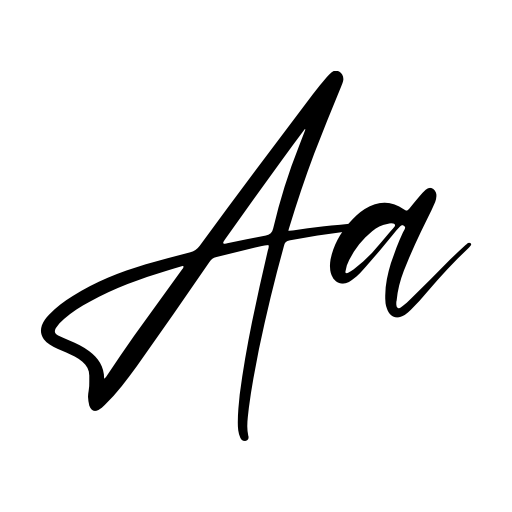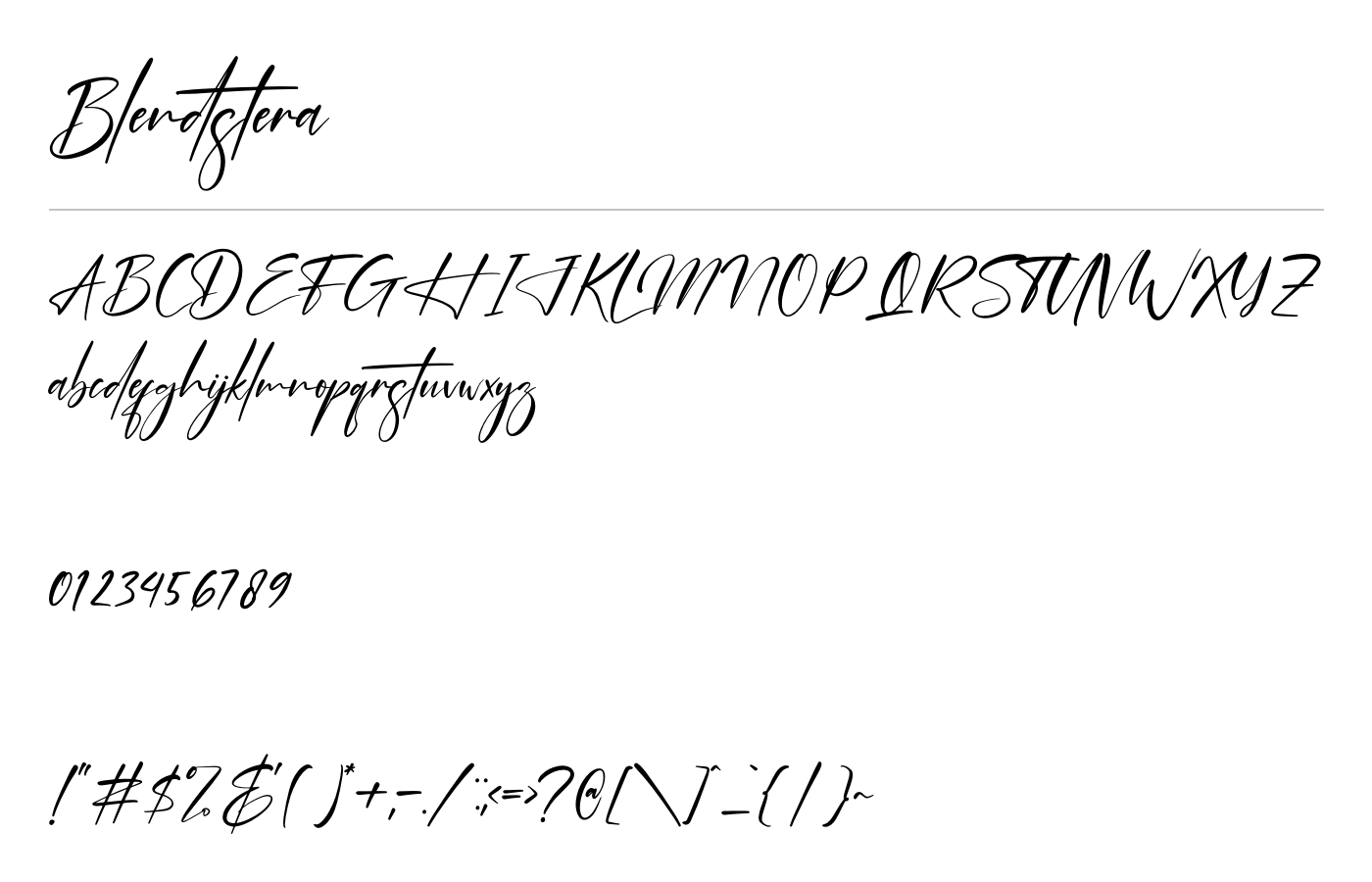
Blendstera is an elegant and modern script font featuring a fluid, handwritten style with delicate, smooth strokes and a graceful, slightly narrow width. Its high contrast and flowing letterforms give it a sophisticated and stylish personality, making it perfect for luxury branding, invitations, and creative editorial projects where a personal yet refined touch is desired. This font shines best in headlines and logos, lending a chic and approachable vibe to any design.
Blendstera Font
About Blendstera Font